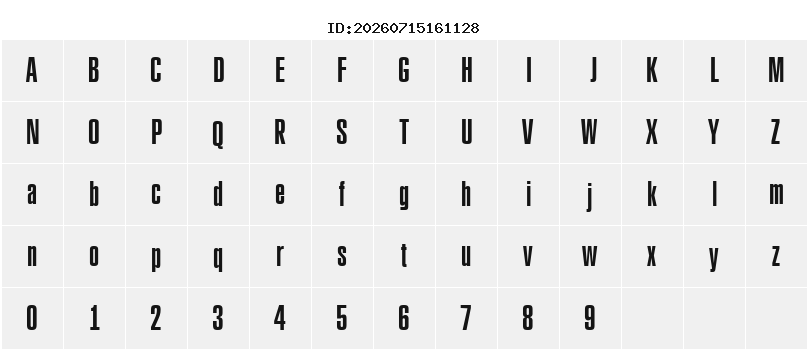
About a_RubricaXtCn.ttf
a_RubricaXtCn.ttf is a modern, elegant sans-serif font designed for ultimate readability and visual harmony. Perfect for branding, headlines, web design, and print materials.